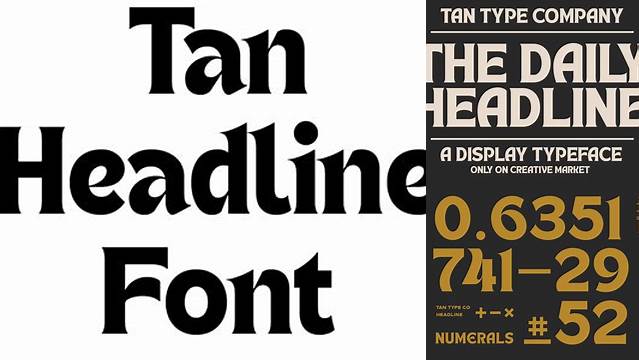
Hey guys! Are you on the hunt for a clean, modern font that can really make your designs pop? Look no further than Tan Headline Regular, a versatile typeface that's perfect for a wide range of projects. This article is your ultimate guide to finding a free download of the Tan Headline Regular OTF 400 font. We'll dive into everything from what makes this font so special to where you can (legally!) snag it for your next creative endeavor. So, buckle up and let's get started!
1. What Makes Tan Headline Regular So Popular?
Tan Headline Regular has become a favorite among designers for its sleek lines and readability. This font strikes a perfect balance between modern and classic, making it suitable for everything from website headers to print materials. The clarity of the characters ensures your message is always clear and impactful. Its clean design aesthetic makes it an excellent choice for projects needing a touch of sophistication without being overly stylized. Whether you're designing a logo, creating marketing materials, or putting together a presentation, Tan Headline Regular offers the versatility and elegance you need. Its neutrality ensures seamless integration into diverse design schemes, making it a reliable option for many projects. Understanding the font's appeal is the first step in appreciating its value and how it can enhance your work.
2. Key Features of the OTF 400 Font
The OTF (OpenType Font) format is renowned for its advanced typographic capabilities and cross-platform compatibility, and the Tan Headline Regular OTF 400 variant is no exception. This format supports a wide array of glyphs, ligatures, and alternative characters, giving designers greater creative control. The “400” typically refers to the font weight, indicating a regular or medium thickness that provides excellent readability across various mediums. Using an OTF font ensures smooth rendering at different sizes, making it perfect for both digital and print applications. The features of this font make it a top choice for professional designers seeking quality and flexibility in their typography. Exploring these key features will help you understand why the Tan Headline Regular OTF 400 font stands out in the world of font options.